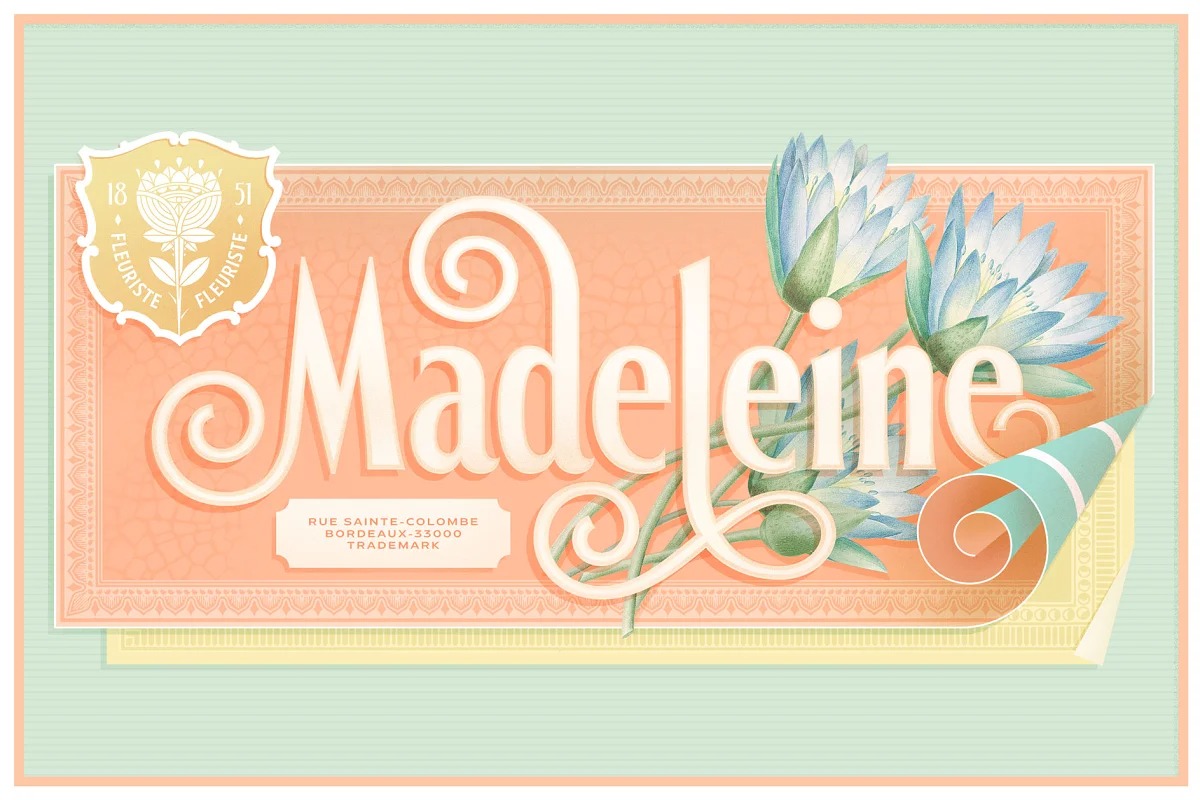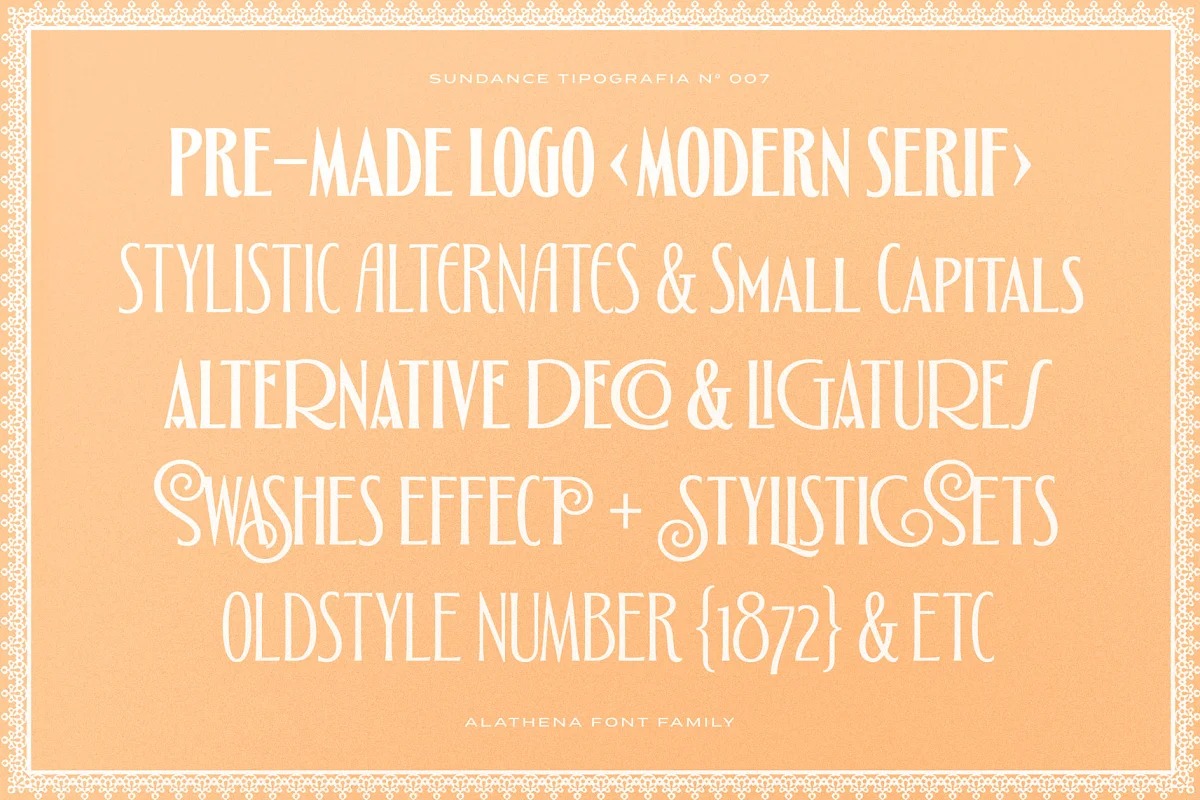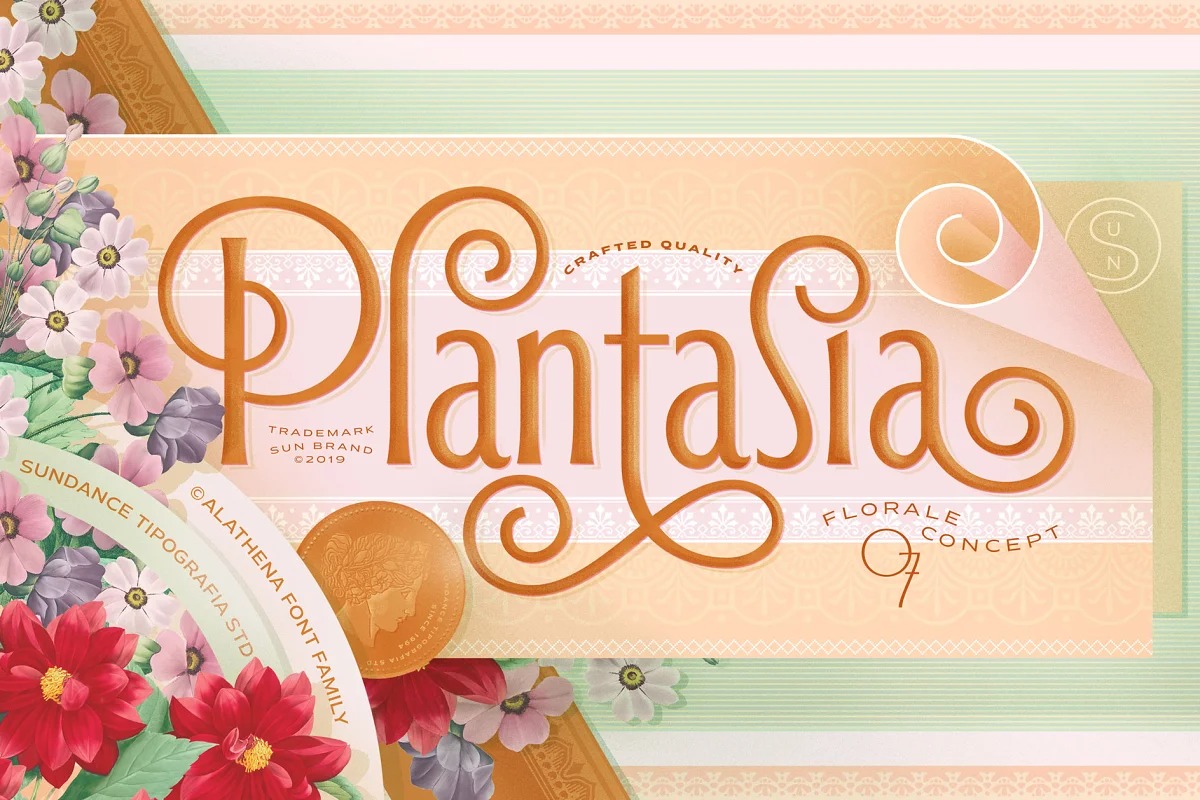
Alathena Font Family
Alathena Serif Font
This typeface is a brand new serif font which has a modern and vintage feel. Inspired by the france art decade between art nouveau to art deco, comes with 2 style, Alternative swash and Modern deco, with some modified ligatures. Available with 6 Weights, Thin, Extra Light, Light, Regular, Bold, Extra Bold with support 75+ language (Latin Pro).